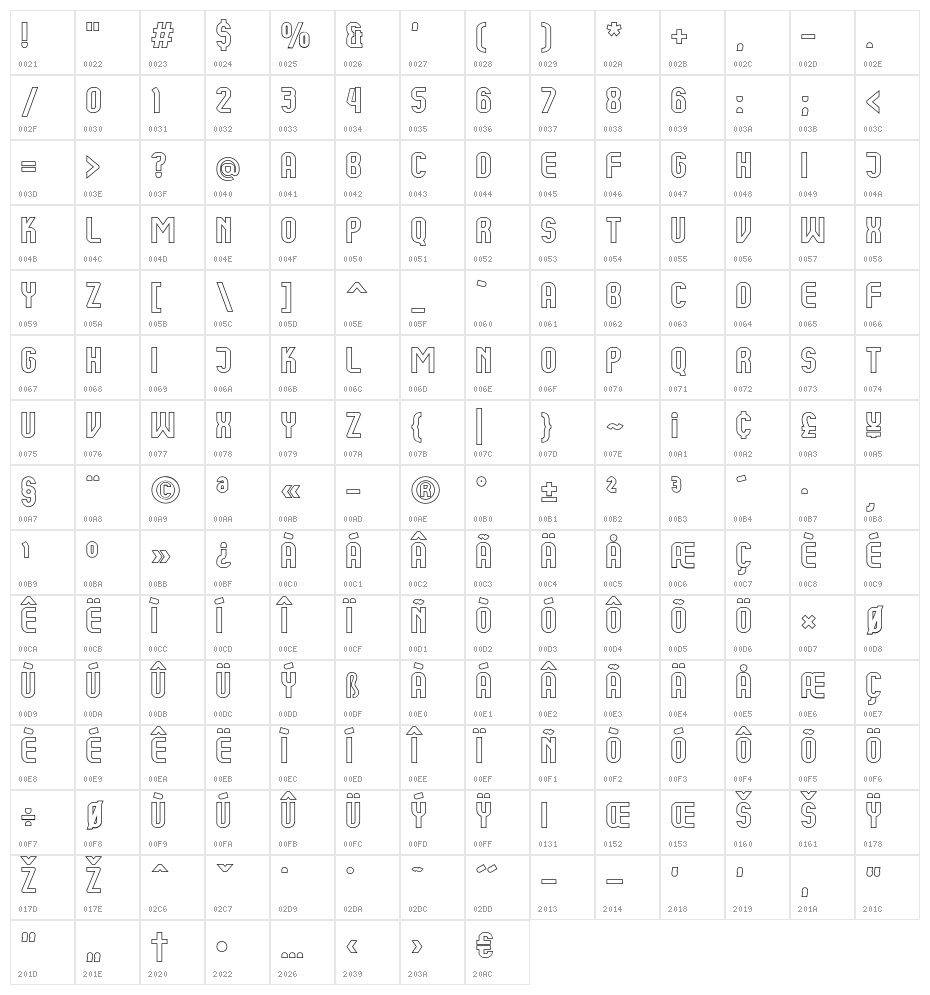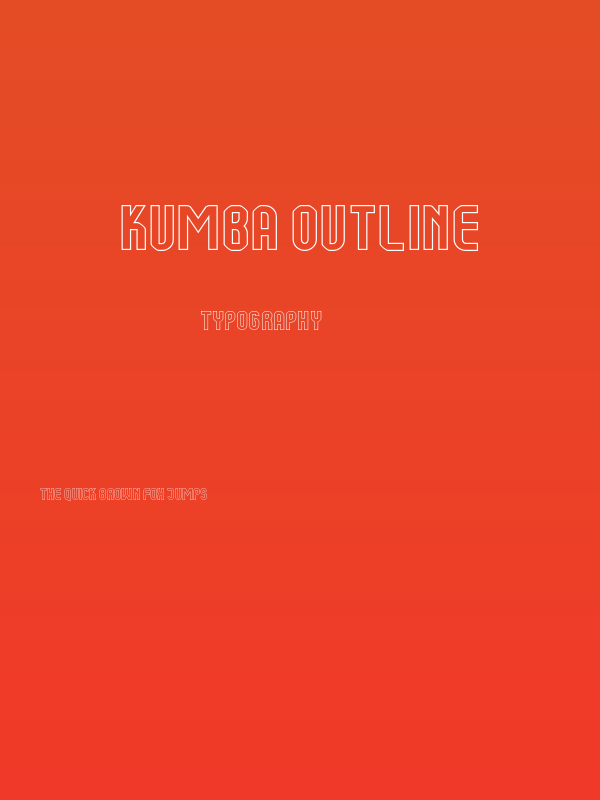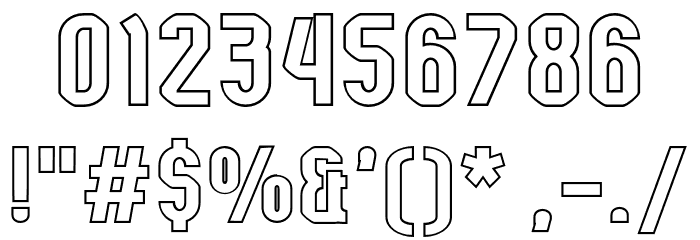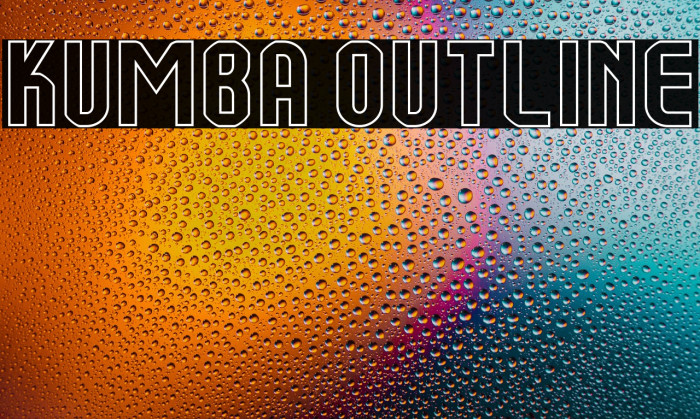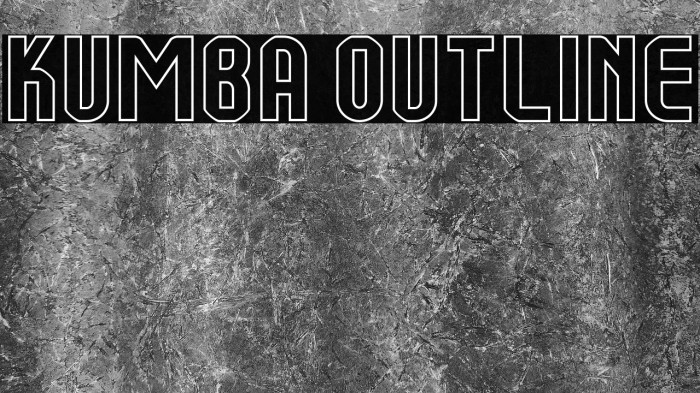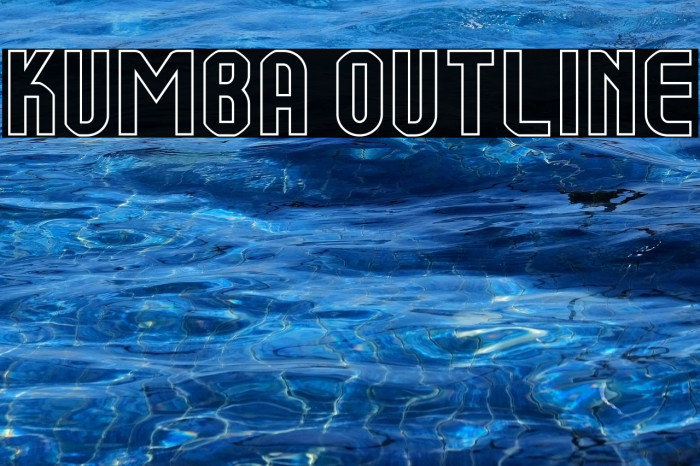
Kumba Outline Font
Kumba Outline Description
This font features a bold, geometric outline style that gives it a modern and striking appearance. The characters are constructed with clean, straight lines and sharp angles, creating a sense of precision and clarity. The uppercase and lowercase letters maintain a consistent height, contributing to a uniform look. The numbers and special characters are designed to match the overall aesthetic, ensuring cohesion across all elements. This font's outline nature makes it ideal for creating eye-catching designs where the text needs to stand out without overwhelming the viewer.
| Proposed Projects | Ideal for posters, headlines, logos, and branding materials where a modern and striking appearance is desired. |